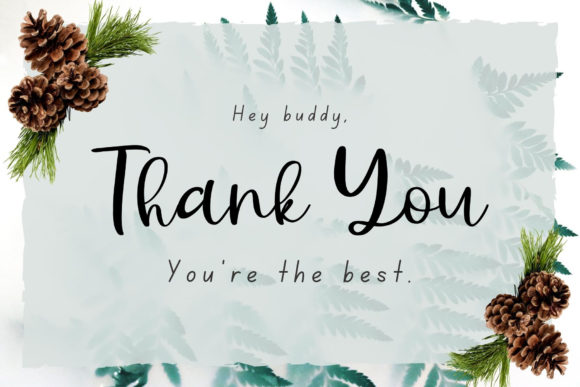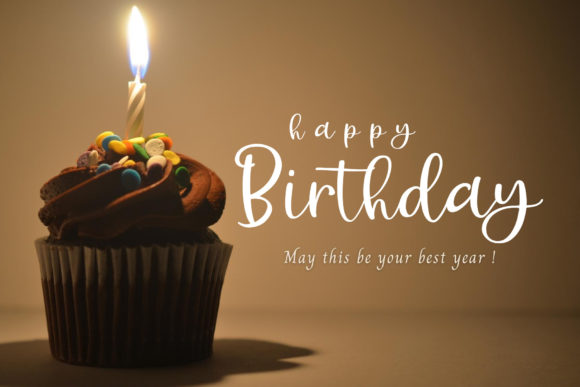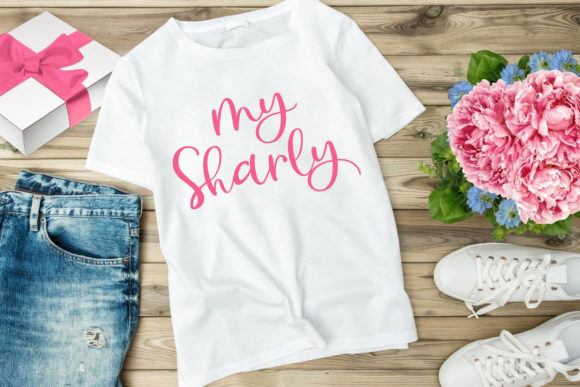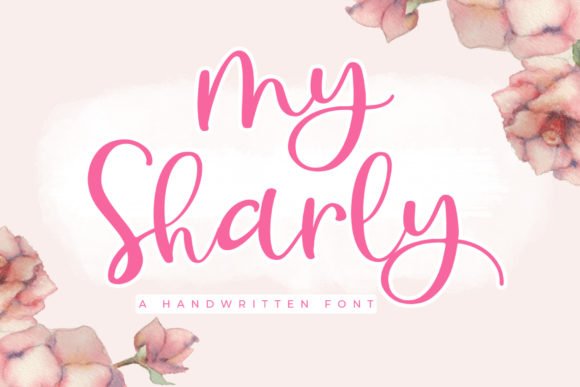
Introduction to My Sharly Font
My Sharly is a relaxed script font, featuring a delicate flow.
It is PUA encoded which means you can access all of the glyphs and swashes with ease Add it confidently to your projects, and you will love the results.
Key Features of My Sharly Font
Why Choose My Sharly Font?
My Sharly Font offers exceptional quality and versatility, making it a valuable addition to your design toolkit. Whether you’re creating for personal projects or commercial use, My Sharly Font delivers professional results.